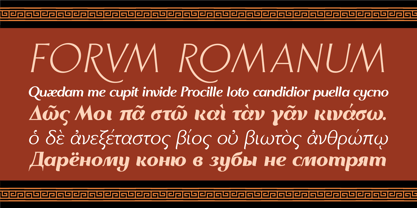
Kalliope
by The Ampersand Forest
The Kalliope Font Family was designed by DC Scarpelli and published by The Ampersand Forest. Kalliope contains 10 styles and family package options.
Named for the “Golden-Voiced” Muse of Epic Poetry, Kalliope is a flare serif in five weights inspired by classical letterforms. Kalliope supports Latin, Cyrillic, and both Mono- and Polytonic Greek.
Great for uses from display all the way to large text, Kalliope is packed full of stylistic alternates, discretionary ligatures, and a slew of ornaments and borders!